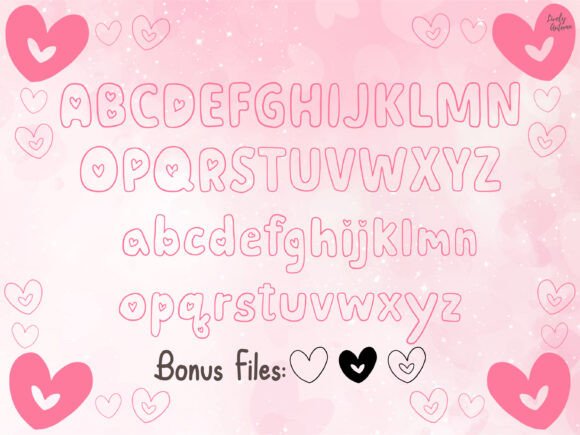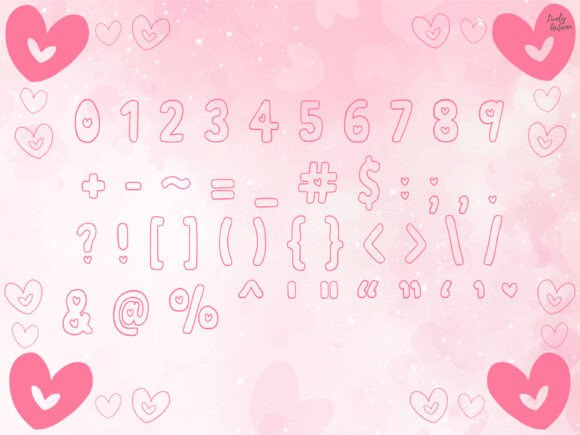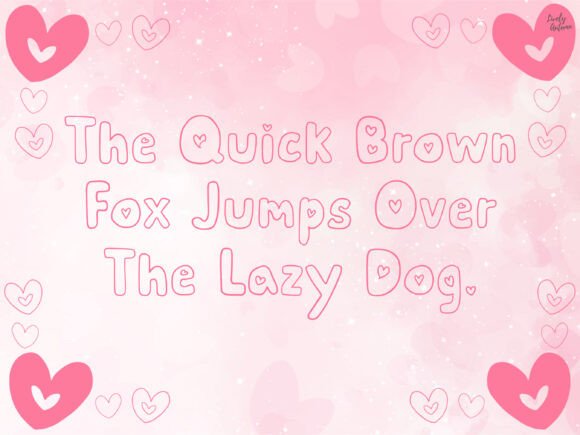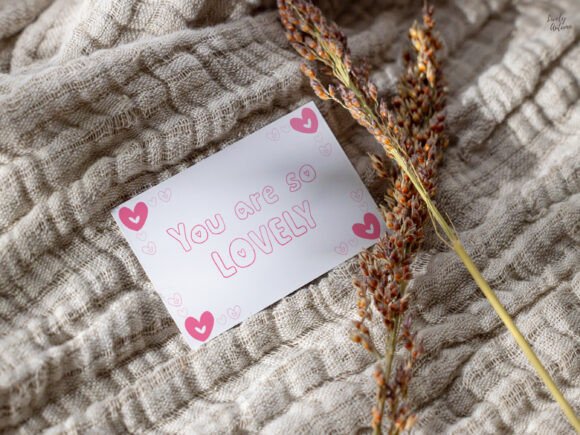
When Creativity Strikes
Have you ever been working on a project and suddenly, inspiration hits? The ideas start flowing, and you can’t wait to bring your vision to life. For many designers, this moment is the spark that sets their creativity ablaze. And for those looking to add a touch of whimsy to their work, there’s one font that’s sure to capture their hearts – literally!
Meet the Adorable Font, a charming handwriting font that’s perfect for personal projects, Valentine’s Day celebrations, and anything in between. With its adorable heart-filled letters, this font is a breath of fresh air for designers seeking to add a playful touch to their work. Whether you’re creating invitations, posters, social media graphics, or greeting cards, the Adorable Font is sure to bring a smile to your face and a touch of magic to your designs.
Key Features of Adorable Font
- Character Set: This font features a comprehensive character set, including uppercase and lowercase letters, numbers, punctuation marks, and special characters, ensuring that users have access to a wide range of symbols and glyphs.
- Unique Characteristics: This font is known for its playful and cute design, making it ideal for use in children’s books, educational materials, and other applications where a friendly and approachable tone is desired.
Designer Review: Adorable Font
Overall, I think the “Adorable Font” is a cute and playful addition to any design project. ✨ It’s perfect for creating a whimsical atmosphere in children’s books, party invitations, or social media graphics. The font is well-designed, with a consistent style that makes it easy to read and use.
The font has a lot of character, with a range of weights and styles that can be used to add emphasis and variety to your design. ✨ It’s also highly customizable, with options for adjusting the spacing and alignment of the text. This makes it a great choice for designers who want a high degree of control over their typography.
- ⚠️ The font may not be suitable for formal or professional designs, as it can come across as too playful or immature.
- ⚠️ The font may not be as legible at very small sizes, so it’s best to use it in larger point sizes or in conjunction with other fonts.
- ⚠️ Some users may find the font too “cute” or over-the-top, so it’s best to use it in moderation and in the right context.
Overall, I think the “Adorable Font” is a great choice for designers who want to add a playful touch to their projects. While it may have some limitations, it’s a well-designed and highly customizable font that can add a lot of personality to your designs.
Tips for Getting the Most Out of Adorable Font
To get the most out of the Adorable Font, try using it in combination with bold or italic styles to add emphasis to your text. You can also use it in conjunction with other design elements such as graphics and images to create a visually appealing design.
The Adorable Font is commonly used in designs such as:
- Children’s book covers
- Wedding invitations
- Party decorations